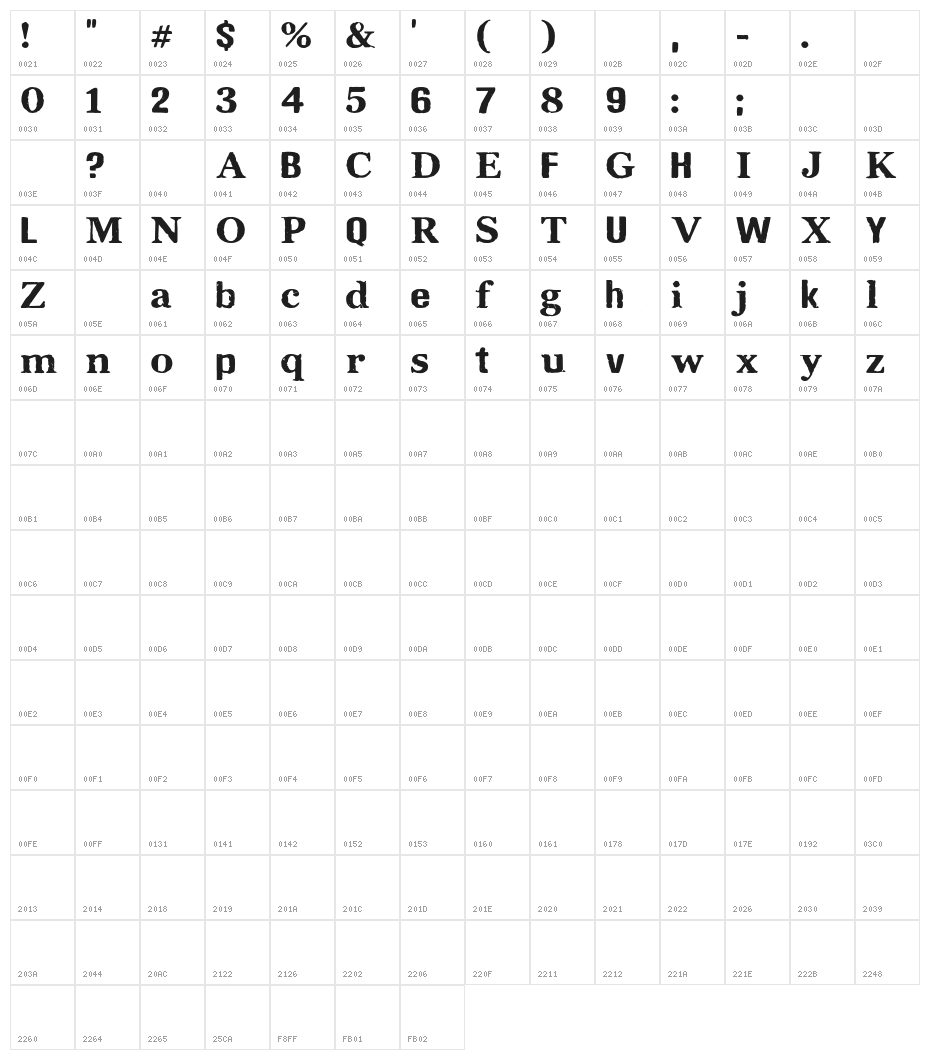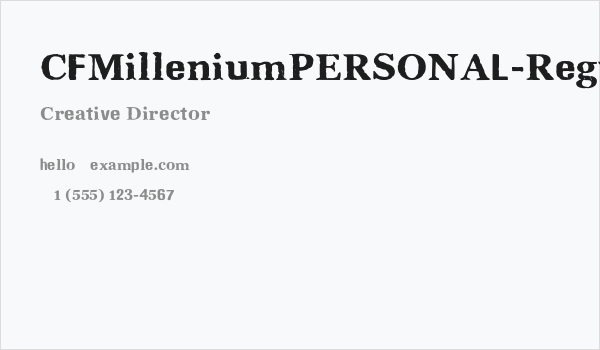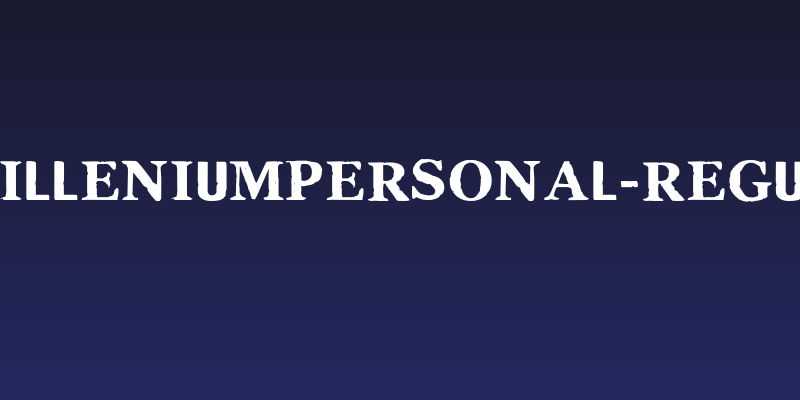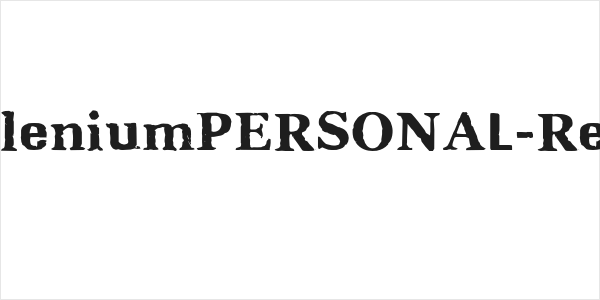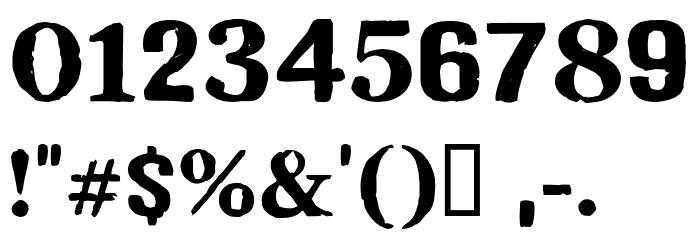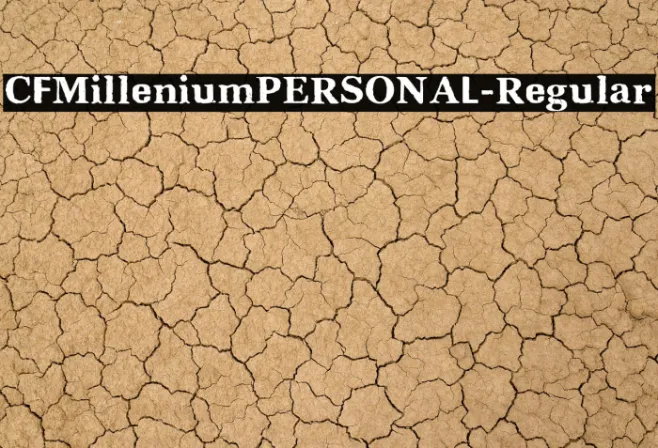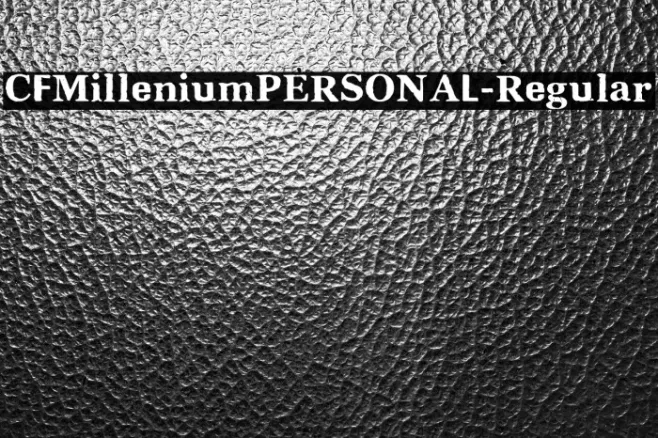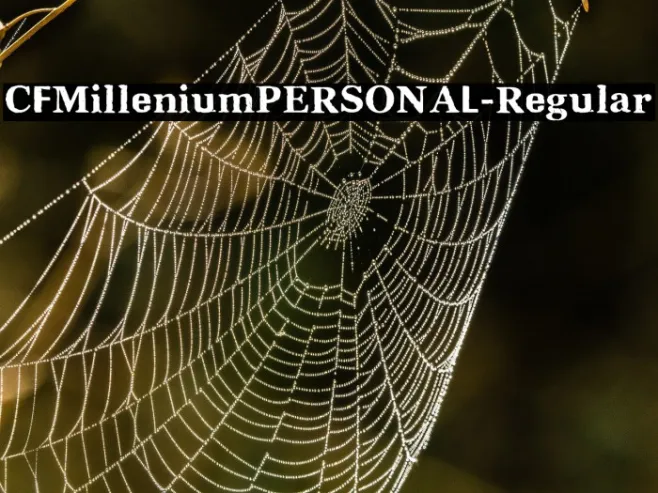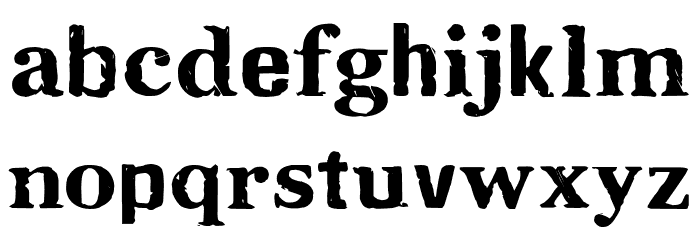
CFMilleniumPERSONAL-Regular Font
CFMilleniumPERSONAL-Regular Description
This font features a bold and rugged design with a distressed, vintage appearance. The uppercase and lowercase letters have a strong presence, with thick strokes and slightly uneven edges that give it a hand-crafted feel. The numbers and special characters maintain this aesthetic, providing a cohesive look across all glyphs. The font's texture suggests a historical or industrial theme, making it suitable for projects that require a touch of nostalgia or a bold statement.
| Proposed Projects | Ideal for vintage posters, branding for artisanal products, book covers, and any design project that requires a bold, historical touch. |